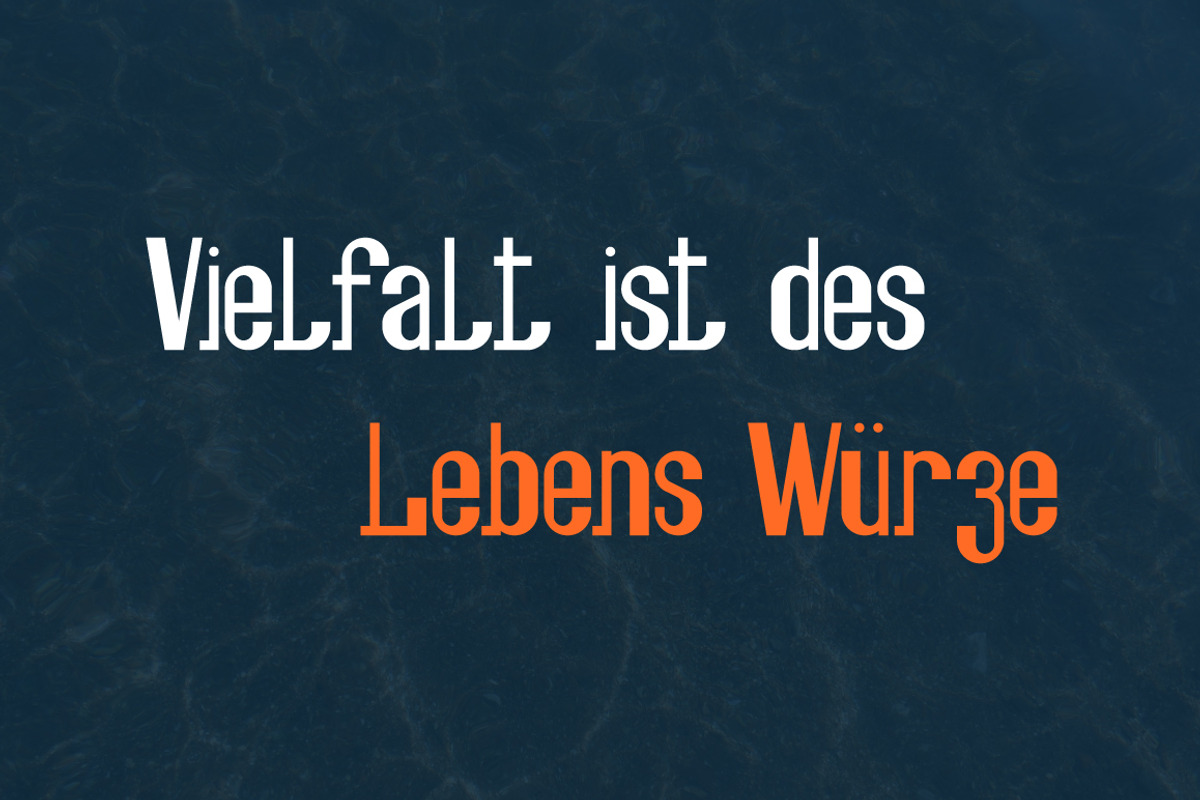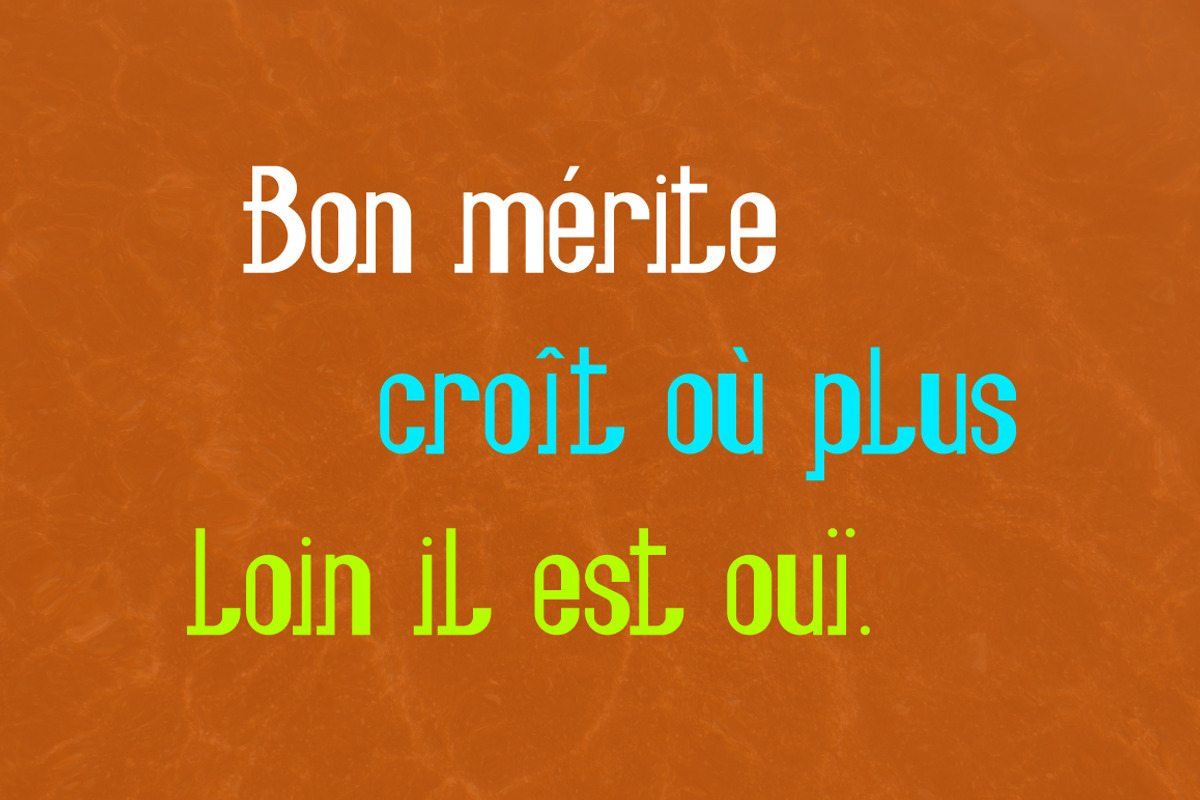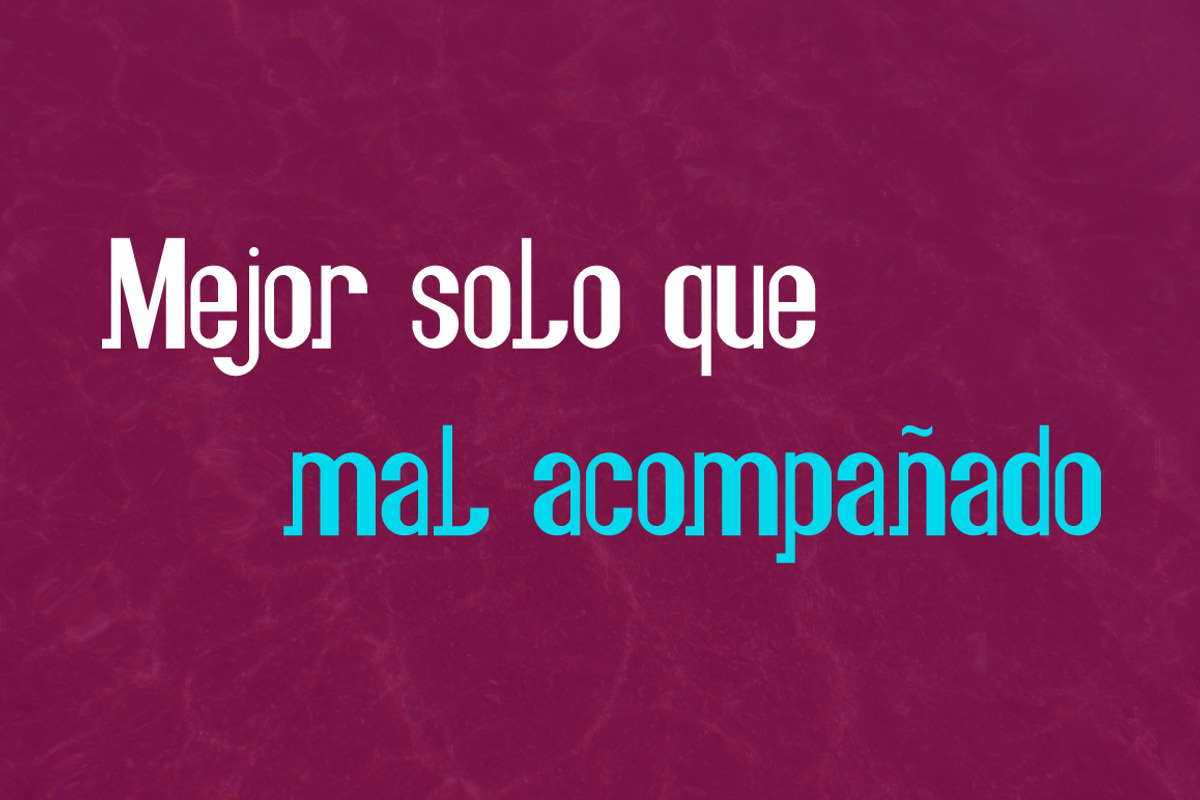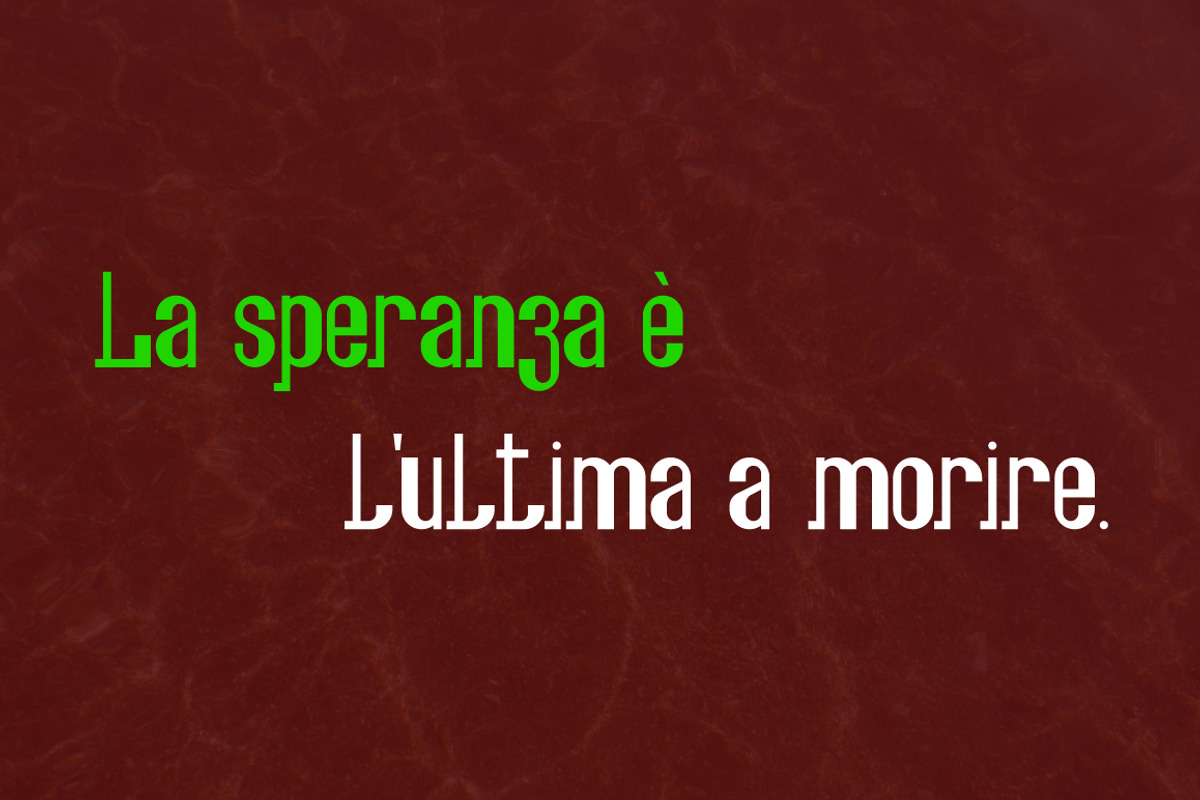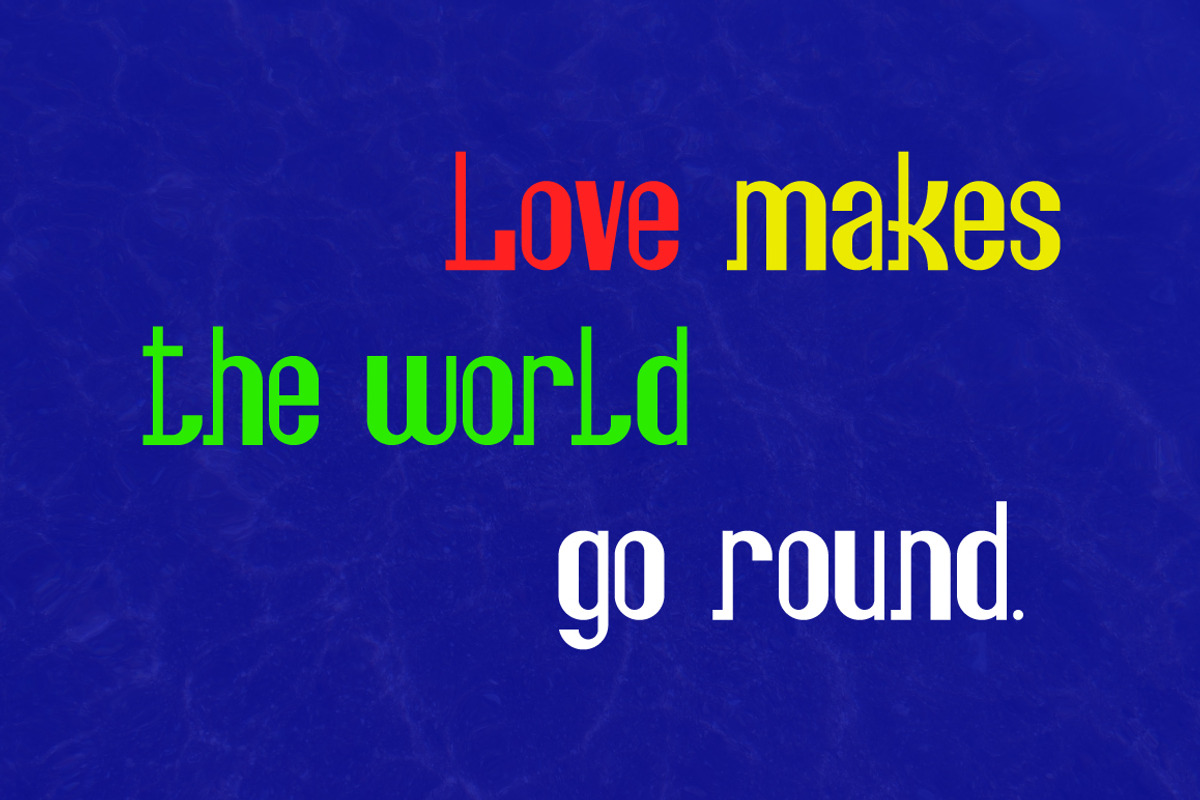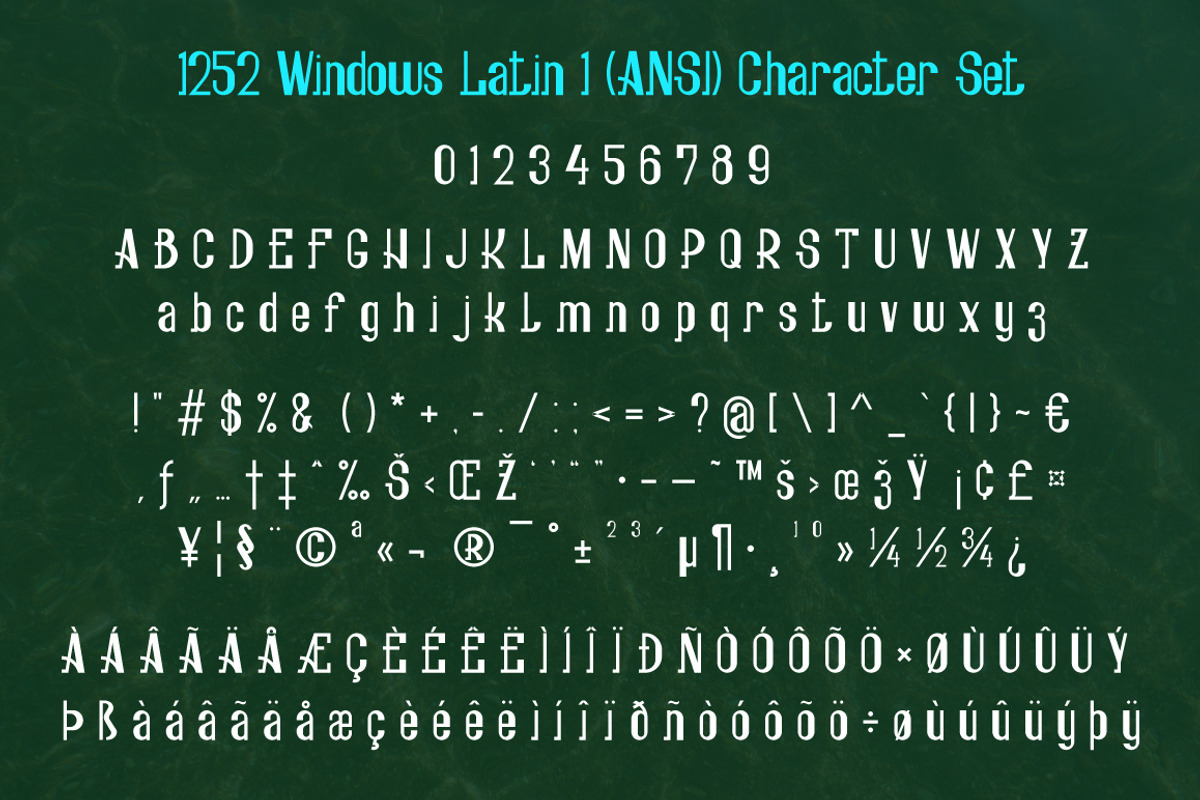
Fesch | bottom-left slab serif font
Fesch-Regular is elegant bottom-left slab serif font that consists of uppercase and lowercase letters, numbers special and non-English glyphs. This is also called 1252 Windows Latin 1 (ANSI) Character Set.
Fesch | bottom-left slab serif font by Guten Tag Vector fits naturally into Branding, posters, packaging, typography.